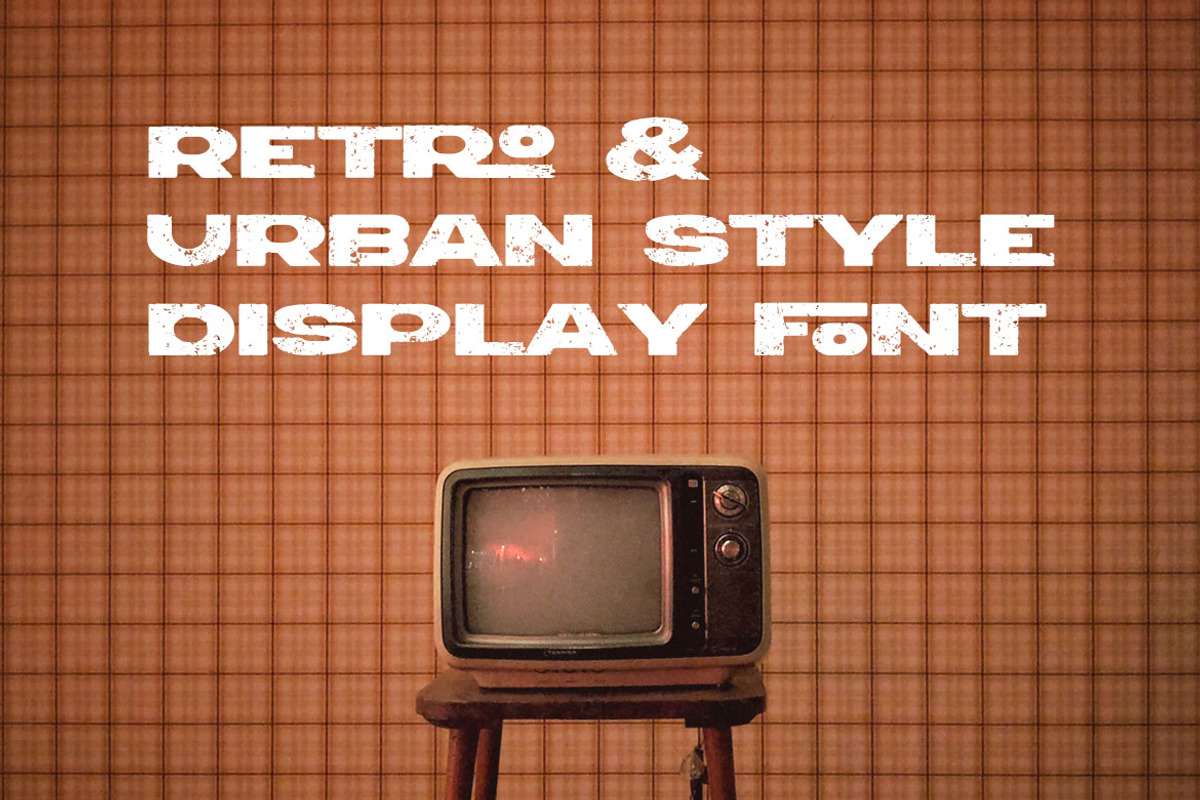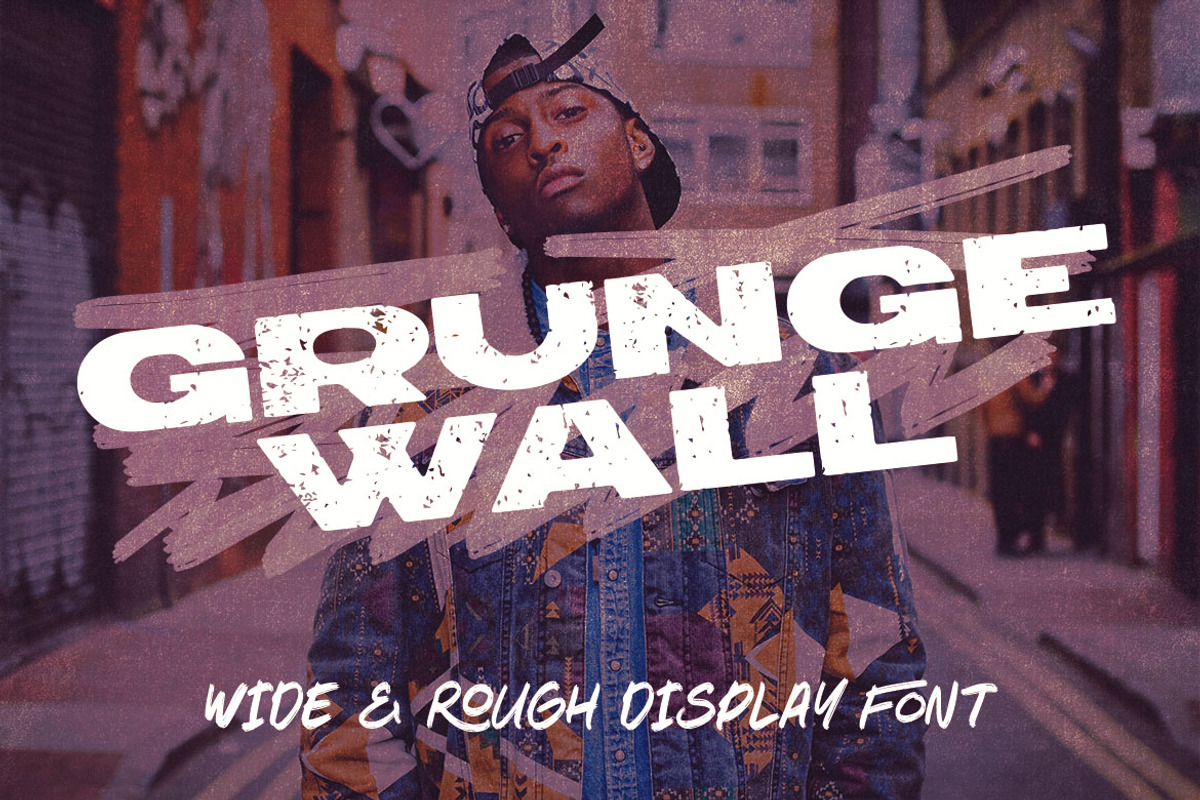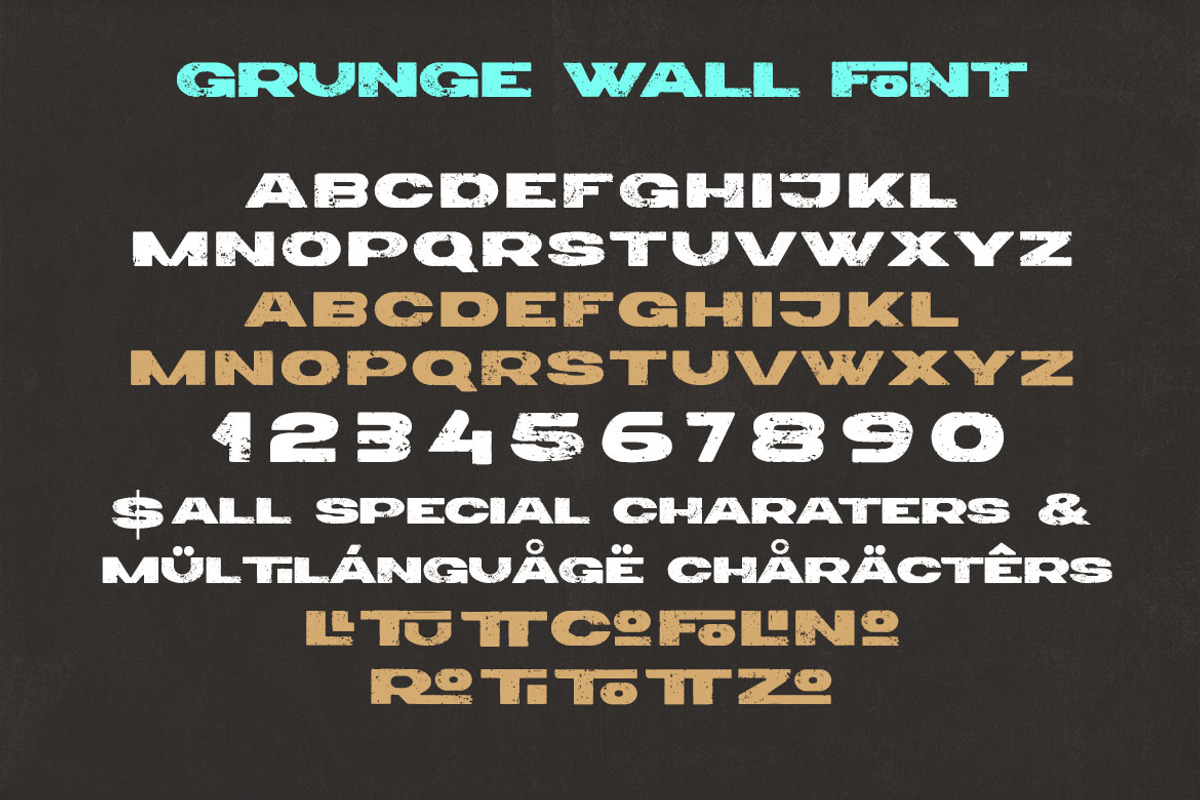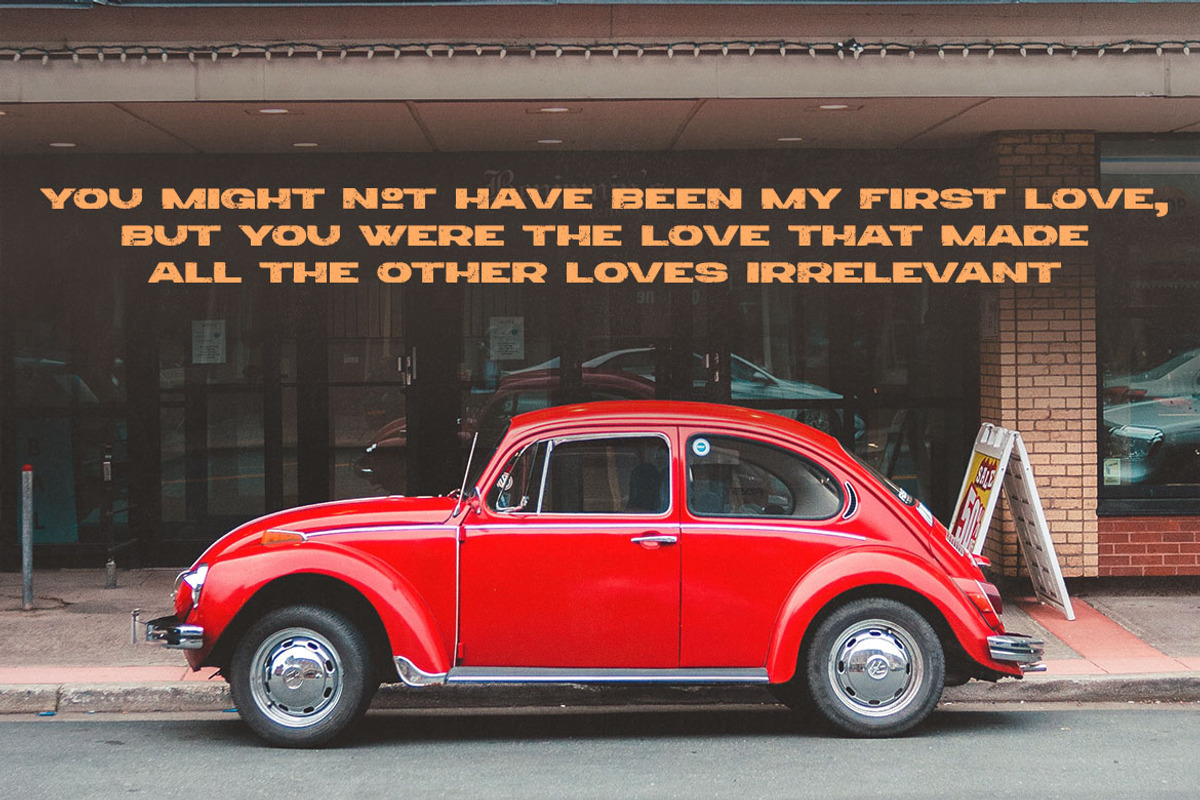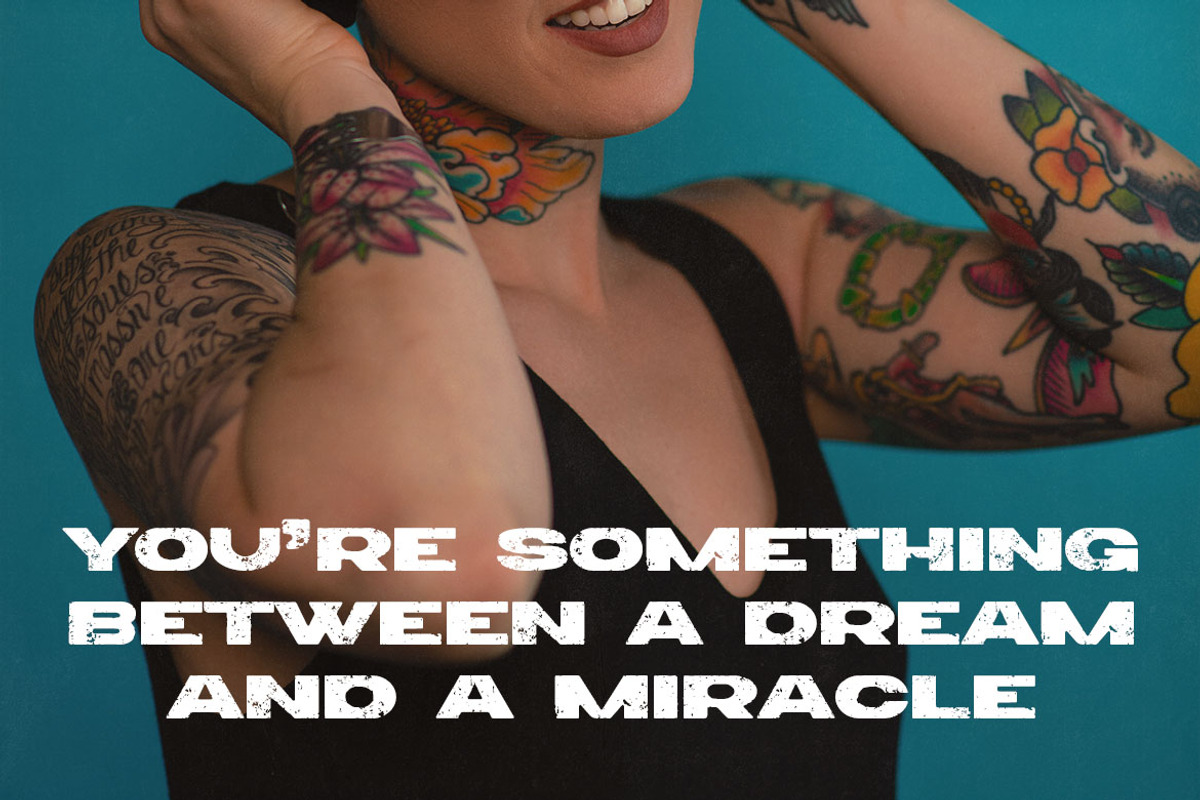
Grunge Wall Wide
Wide, rough, retro, bold and urban style sans serif font for your new projects. With multi language support and retro & grunge street style ;)
- multilingual support
- CAPS & CAPS alternates (small letters) + numbers & special characters